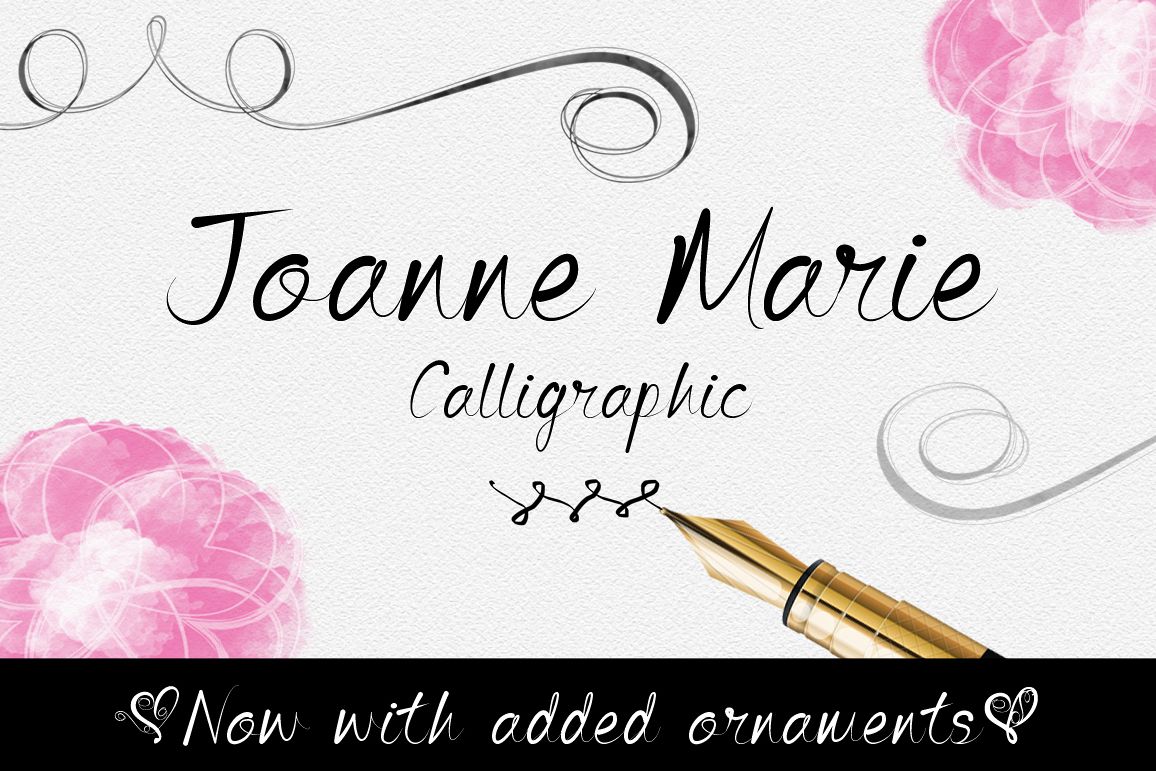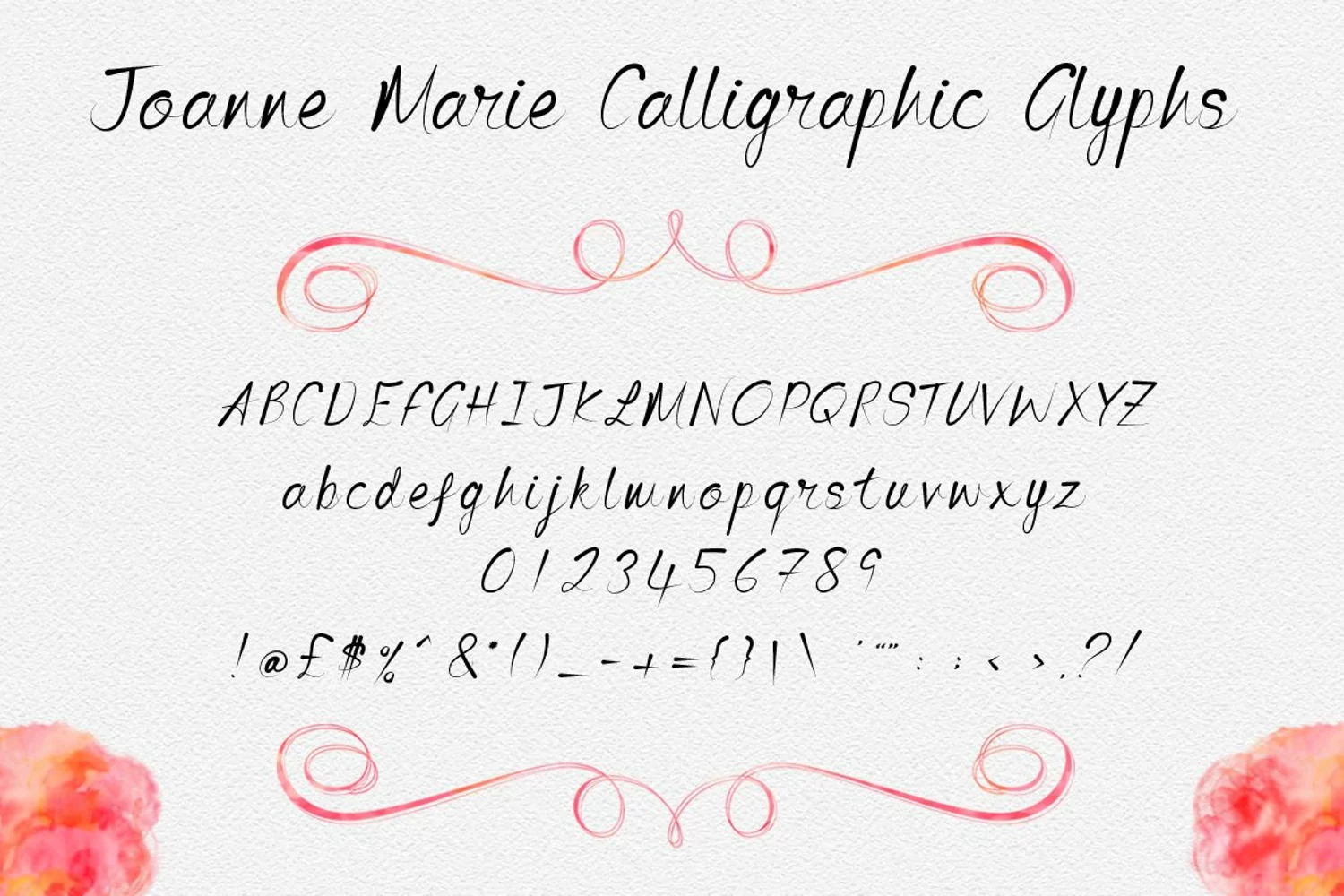
Joanne Marie is a hand lettered, elegant, calligraphy font. This is the first font I've made from my handwriting.
It can be used for a wide range of projects, such as logo designs, party & wedding invitations, t-shirt designs, signs, magazine design, greetings cards, poster design and much more!